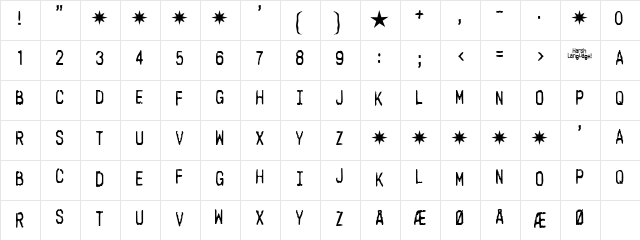
Harsh language AC Regular
Design Context for Harsh language AC Typeface
Harsh language AC offers clean, dependable letterforms without strong stylistic allegiance, making it a practical choice for designers who need flexibility.